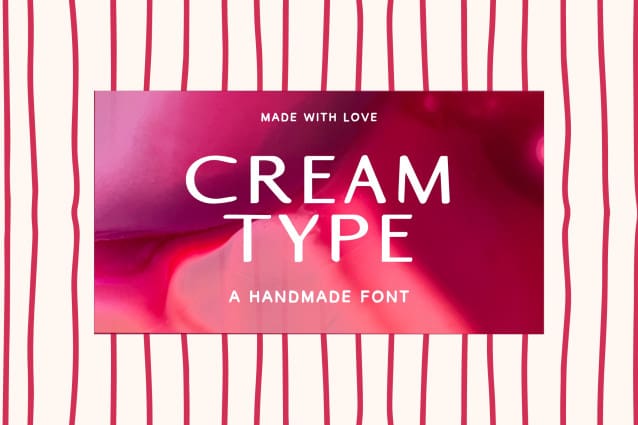
Cream Type Font
Cream Type Font: a hand-drawn display font that’s great for logos, greeting cards, posters, and packaging. This font feels charming and warm, making your projects stand out. It includes uppercase, lowercase, numbers, punctuation, and symbols, and with Latin extended character support, it’s versatile for a variety of creative endeavors while exuding a rustic charm.
The Cream Type font will look great on invitations, packaging, slideshows, logos, headlines, lettering, posters, branding, inspirational quotes, headlines, magazine layouts, website designs, advertising, invitations, packaging designs, book covers and any other creative endeavor.